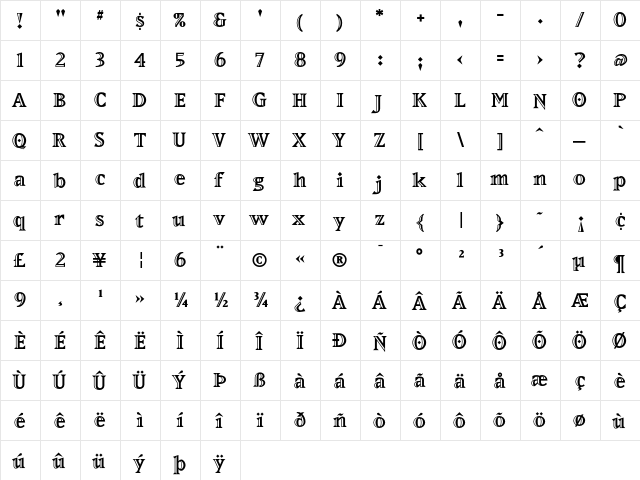
MatrixInlineExtraBoldLining Regular
Design Context for MatrixInlineExtraBoldLining Typeface
MatrixInlineExtraBoldLining brings ornamental detail and strong personality to headlines and identities, where visual impact matters more than quiet functionality. The heavy weight commands attention and anchors typographic hierarchies.
Font Pairing: Pair with a clean neutral sans-serif for body copy to let MatrixInlineExtraBoldLining's character lead without overwhelming the composition.
Pro Tip: Treat MatrixInlineExtraBoldLining as the centrepiece of your typographic hierarchy. One strong heading set in a decorative face can carry an entire layout.